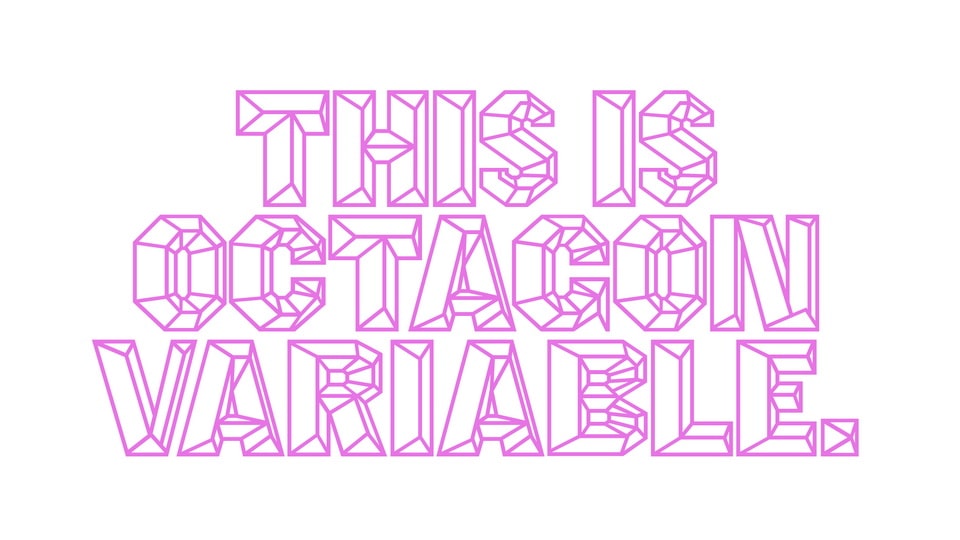
Download Octagon font, a variable typeface based on a wood type first shown in George Nesbitt’s First Premium Wood Types Cut by Machinery in 1838.
Designer: Simon Thiefes